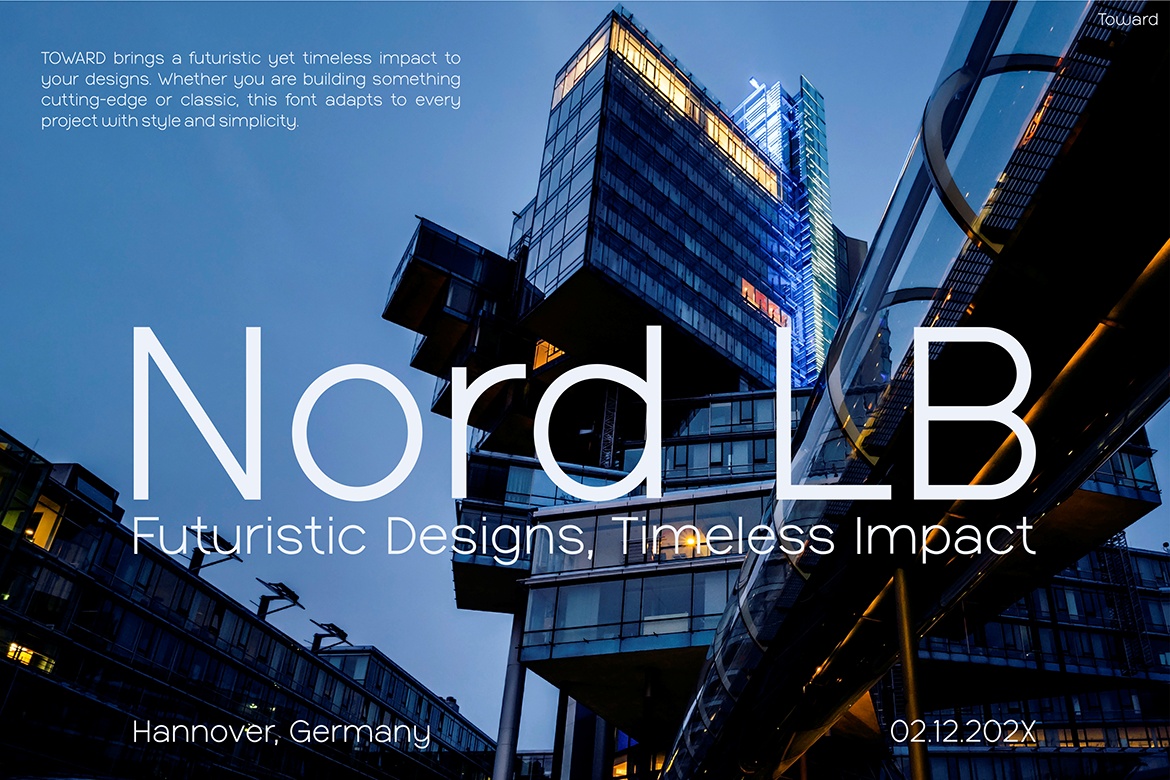
TOWARD is a futuristic, minimalist sans-serif font designed to embody innovation and modern symbolism in visual identity design. With its rectilinear forms and sharp, pointed edges, this typeface exudes a distinctly futuristic aesthetic. Whether shaping the identity of a pioneering company, conceptualizing an architectural layout, or envisioning the future of digital experiences, TOWARD brings clarity and elegance to any project.
As a modern typeface, TOWARD is well-suited for brands aligned with contemporary trends. It seamlessly blends delicate and sharp lines, ensuring readability while maintaining a sleek, minimalistic style. Its structured and refined appearance makes it particularly ideal for use in technology, engineering, and online media services.
Toward Sans Serif Font